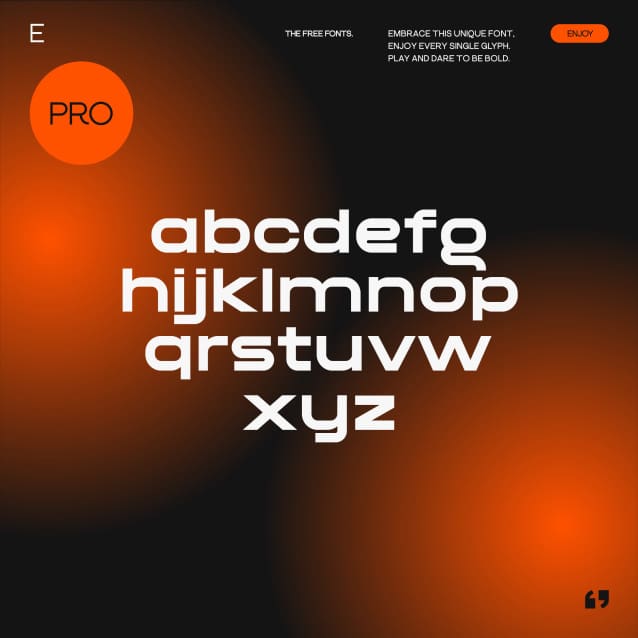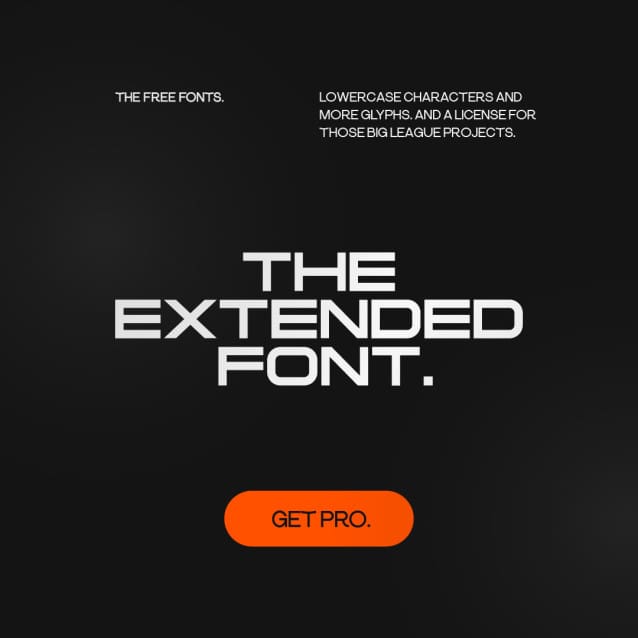
The Extended Font, expanded brings a modern and strong impression to your design. With a bold style, make this font suitable as the main text / header text on a website or layout design. TheExtended Font expanded also includes alternative glyphs that make it easy for you to make customizations.